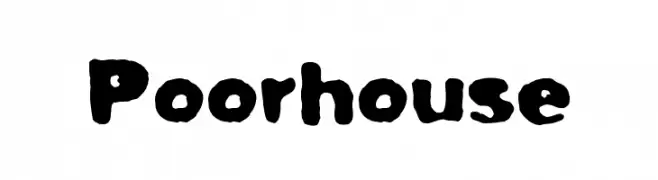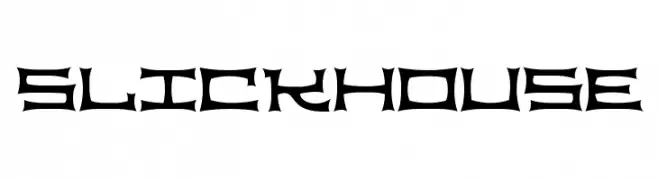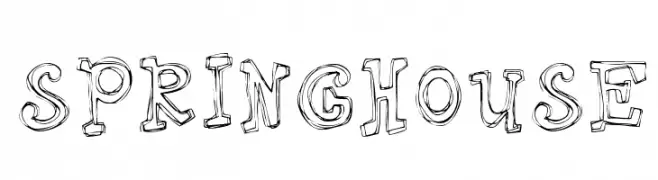
A bold, geometric font with angular strokes and playful design.
A bold, hand-drawn inline font with a sketch-like appearance.
A bold, playful font with thick, uneven strokes and a hand-drawn appearance.
A playful, hand-drawn font with a sketch-like, three-dimensional appearance.
A bold, hand-drawn font with a textured, block-like appearance.
A bold, distressed font with a grunge, hand-painted style.
A bold, angular font with sharp, geometric lines and a striking appearance.
A bold, hand-drawn font with an expressive, graffiti-like style.
A playful, hand-drawn font with a whimsical, childlike style.